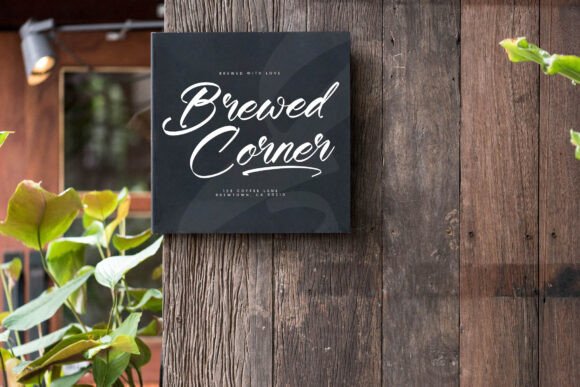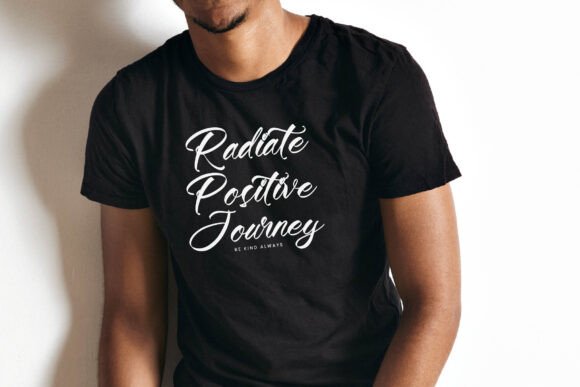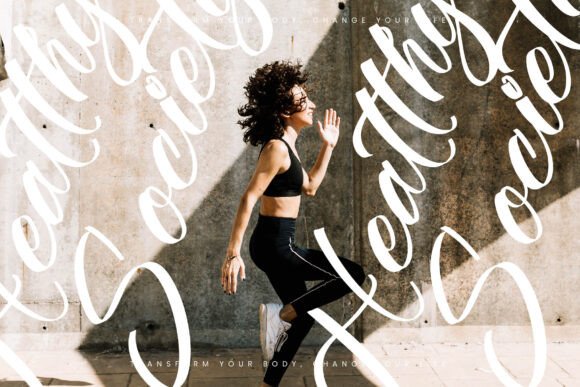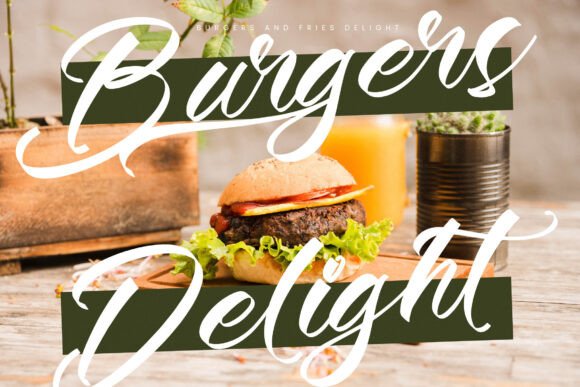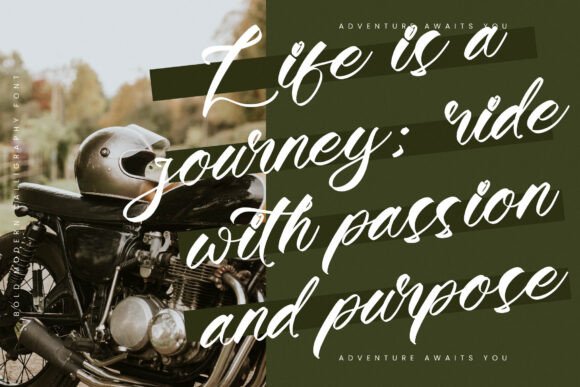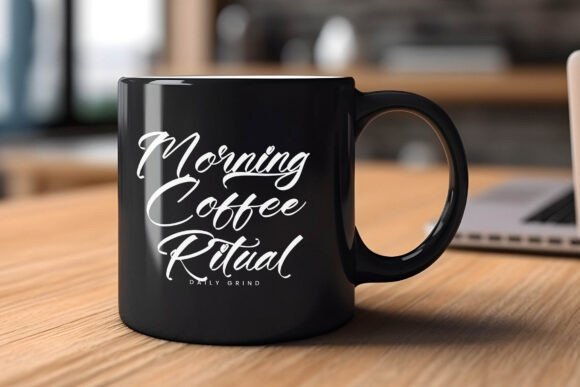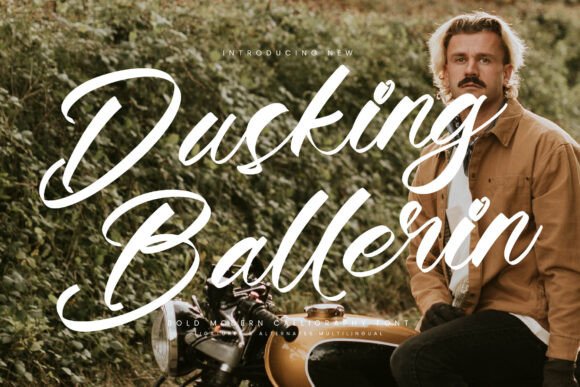
Dusking Ballerin Font: Elevate Your Designs with Bold Modern Calligraphy
In the world of design, typography plays a crucial role in conveying the tone and aesthetic of a project. For those seeking a font that exudes luxury, sophistication, and modernity, Dusking Ballerin is an exceptional choice. This bold modern calligraphy font, crafted by Integritype Studio, has become a go-to for designers and crafters looking to add a touch of elegance to their creations.
What is Dusking Ballerin Font?
Dusking Ballerin is a meticulously designed font that embodies the essence of modern calligraphy with a bold twist. Its unique characters are carefully crafted to provide a luxurious feel, making it perfect for a wide range of applications. From logos and branding projects to homewares designs, product packaging, and more, Dusking Ballerin brings a level of sophistication that is hard to match.
Key Features of Dusking Ballerin Font
• Bold Modern Calligraphy: Dusking Ballerin boasts a contemporary calligraphy style that is both eye-catching and elegant.
• Versatility: Its versatility makes it suitable for various projects, including logos, branding, homewares, product packaging, quotes, posters, and much more.
• Luxury Appeal: The font’s design elements are tailored to provide a premium feel, ideal for luxury brands and high-end products.
Dusking Ballerin’s adaptability makes it an excellent choice for numerous design projects. Here are some of the areas where this font truly shines:
• Logos and Branding Projects: Create a lasting impression with a logo that stands out, thanks to the font’s bold and modern appeal.
• Homewares Designs: Add a touch of elegance to your homewares designs, making them look premium and highly desirable.
• Product Packaging: Elevate your product packaging with a sophisticated look that captures the essence of your brand.
• Mugs, T-shirts, and Merchandise: Give your merchandise a professional and stylish look that will appeal to customers.
• Quotes, Posters, and Invitations: Make your quotes, posters, and invitation cards stand out with a font that commands attention yet exudes elegance.
Why Choose Dusking Ballerin?
In a sea of fonts, Dusking Ballerin stands out for several reasons:
• Unique Design: Its distinctive calligraphy style sets it apart from more traditional fonts.
• High-Quality: Crafted with precision, ensuring clarity and beauty in every character.
• Support for Various Languages: Catering to a global audience with support for multiple languages.
Dusking Ballerin font by Integritype Studio is a game-changer for designers and crafters aiming to infuse their projects with a sense of luxury and modernity. Its bold modern calligraphy, versatility, and ease of use make it an indispensable tool in any designer’s arsenal. Whether you’re working on a branding project, product packaging, or any other design endeavor that requires a touch of sophistication, Dusking Ballerin is the perfect choice. Elevate your designs and give them the premium feel they deserve with Dusking Ballerin.